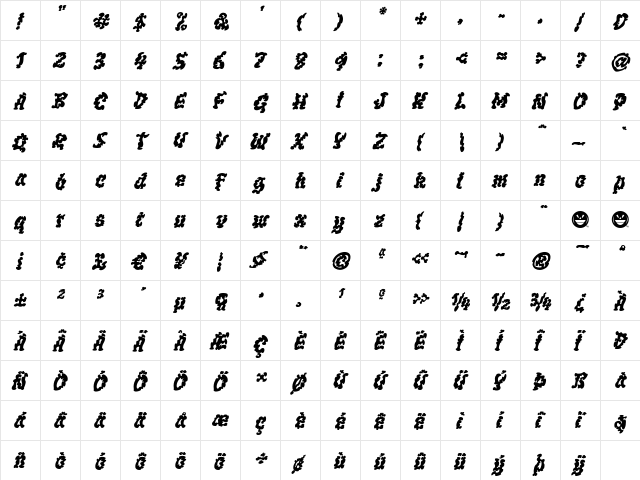
WILD1 Ruts Bold Italic
Design Context for WILD1 Ruts Typeface
WILD1 Ruts is a composed and adaptable typeface that performs quietly and consistently across a wide range of design contexts. The dynamic lean of this cut emphasises speed and emphasis in any layout. The heavy weight commands attention and anchors typographic hierarchies.